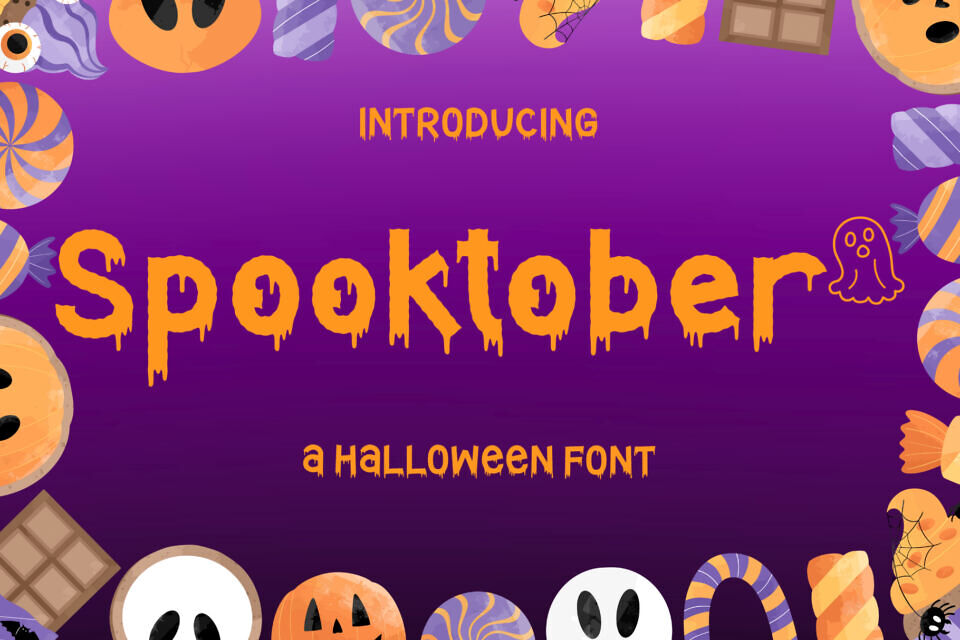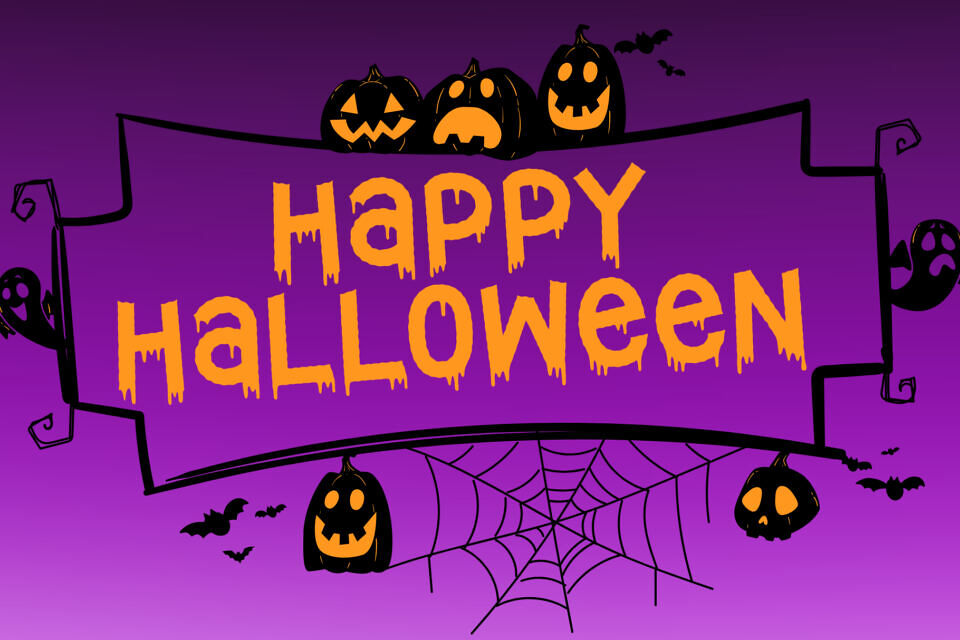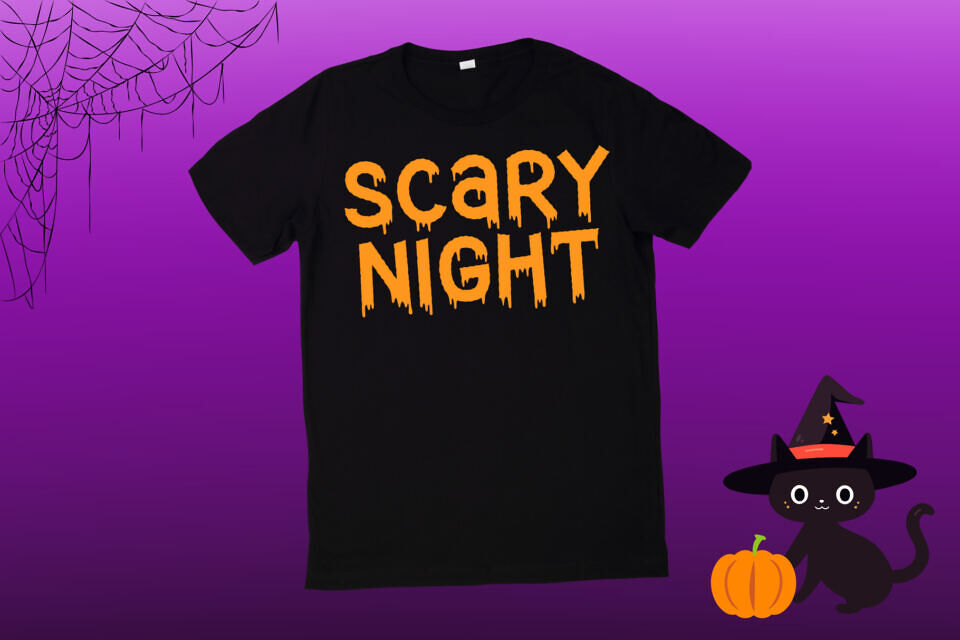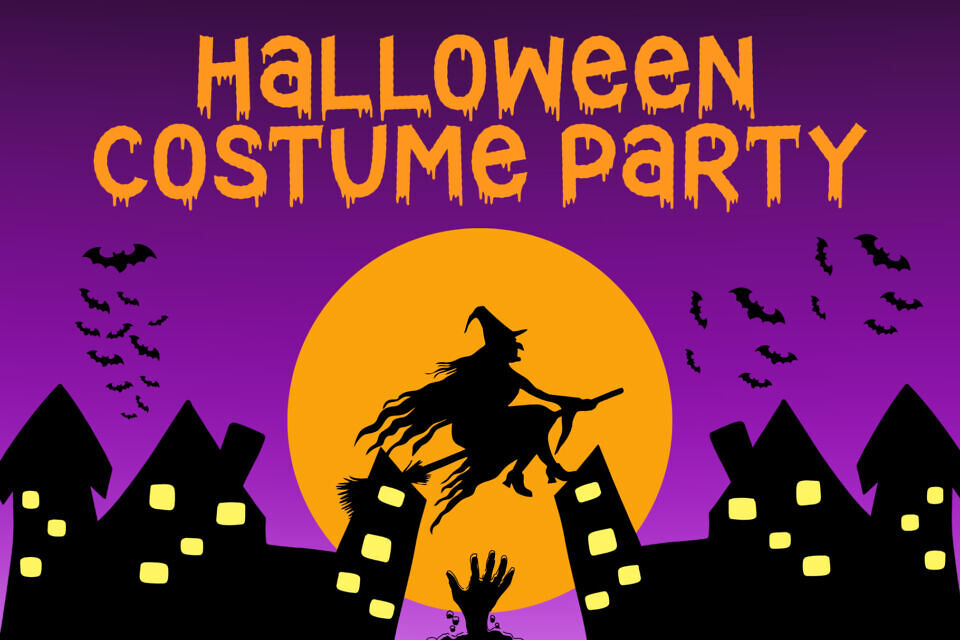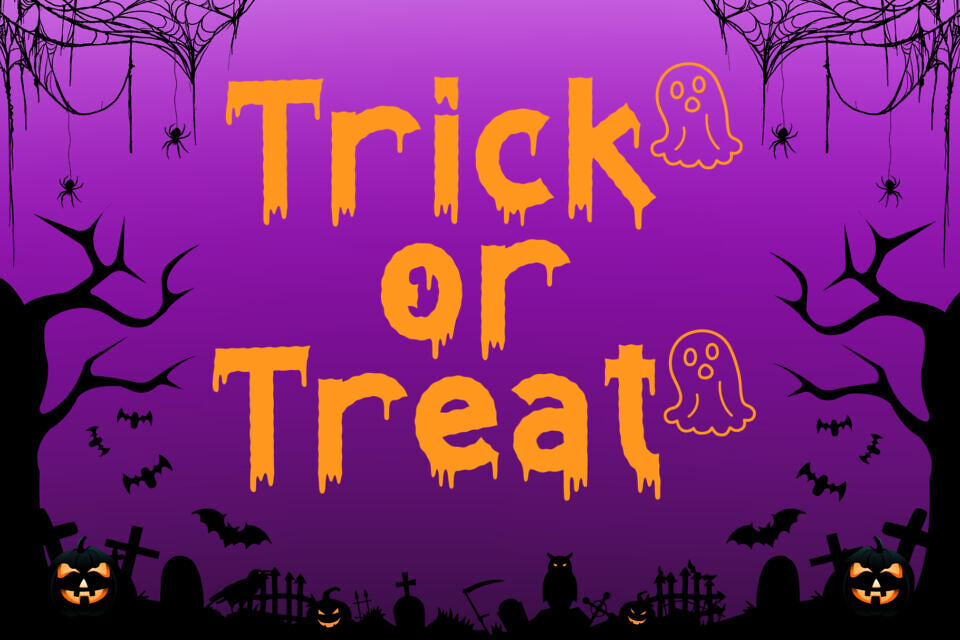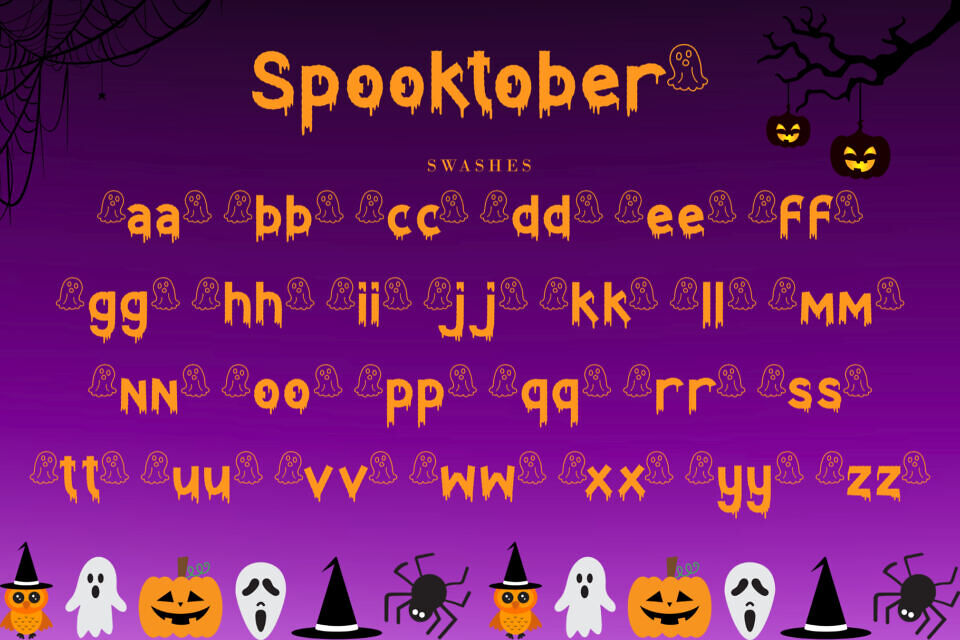
Introducing Spooktober – Dripping Halloween Display Font, a quirky and bold typeface that perfectly captures the spooky charm of October. Inspired by haunted houses, ghostly nights, and trick-or-treat fun, each letter features playful drips for a unique, eerie-yet-fun look.
Ideal for posters, party invitations, social media content, t-shirts, mugs, stickers, and crafting projects, Spooktober is versatile for both professional designers and hobbyists. Pair it with pumpkins, bats, ghosts, or cobwebs to instantly enhance your seasonal creations. Bring your digital and print designs to life with the bold Halloween spirit of Spooktober.